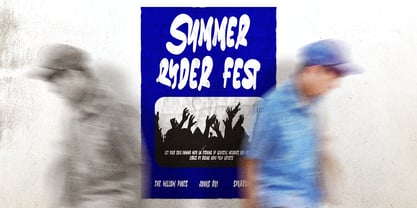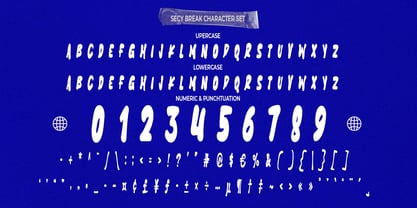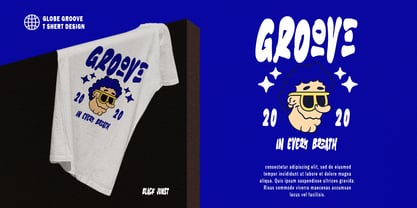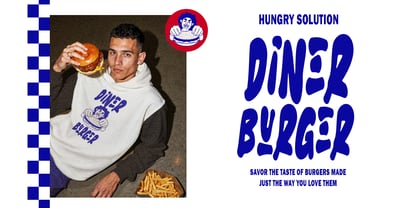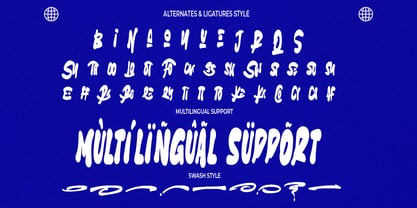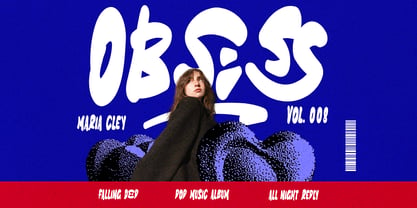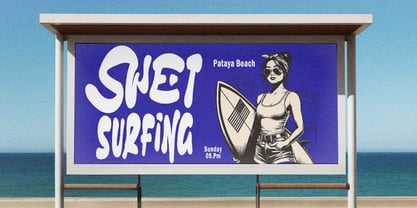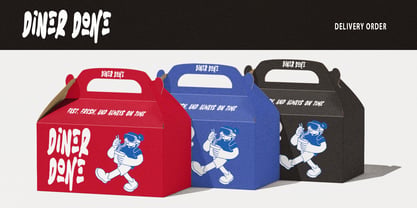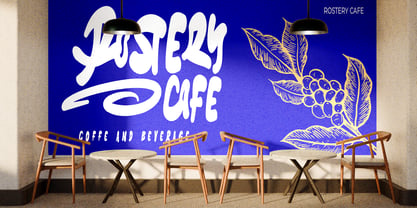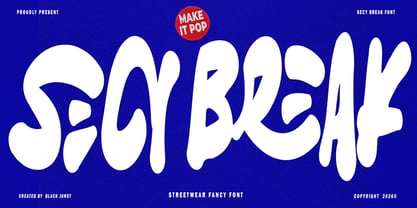
Secy Break
by Black Junst
The Secy Break Font Family was designed by Maulana Semar and published by Black Junst. Secy Break contains 1 styles. More about this family
Secy Break – Streetwear Fancy Display Font Bring bold attitude and playful energy into your designs with Secy Break, a unique streetwear-inspired display font crafted for creators who want to stand out. Designed with organic, fluid shapes and eye-catching character forms, Secy Break delivers a strong visual impact while staying fun, modern, and highly memorable. Perfect for both creative and commercial use, this font bridges the gap between expressive street style and professional branding needs. Whether you're building a bold fashion label, designing packaging, or creating scroll-stopping social media content, Secy Break gives your project a fresh and confident voice. Why Secy Break? - Strong personality with unique handcrafted feel - Highly legible for display use - Trend-driven style (perfect for 2026 street & youth branding) - Works great for both creative and corporate visuals Perfect For: - Streetwear brands & fashion campaigns - Logo & branding projects - Product packaging (F&B, lifestyle, sneakers, etc.) - Social media content & ads - Posters, headlines, and merchandise - Creative agency & startup branding ------------------------------------------------- Design Vibe: Bold , Playful , Street , Modern , Youthful , Eye-catching, **Secy Break isn’t just a font — it’s a statement. Make your design louder, fresher, and impossible to ignore.**
Designers: Maulana Semar
Foundry: Black Junst